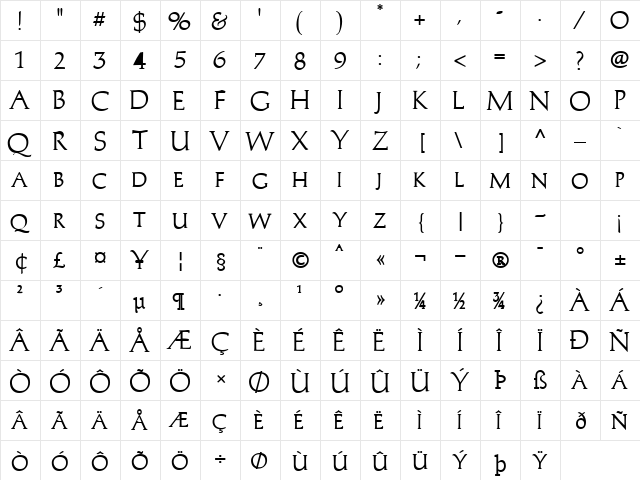
Trajan'sCaps Bold
Design Context for Trajan'sCaps Typeface
Trajan'sCaps offers clean, dependable letterforms without strong stylistic allegiance, making it a practical choice for designers who need flexibility. The heavy weight commands attention and anchors typographic hierarchies.
Pro Tip: Use Trajan'sCaps in both headline and body roles to test its range before committing to a single application.